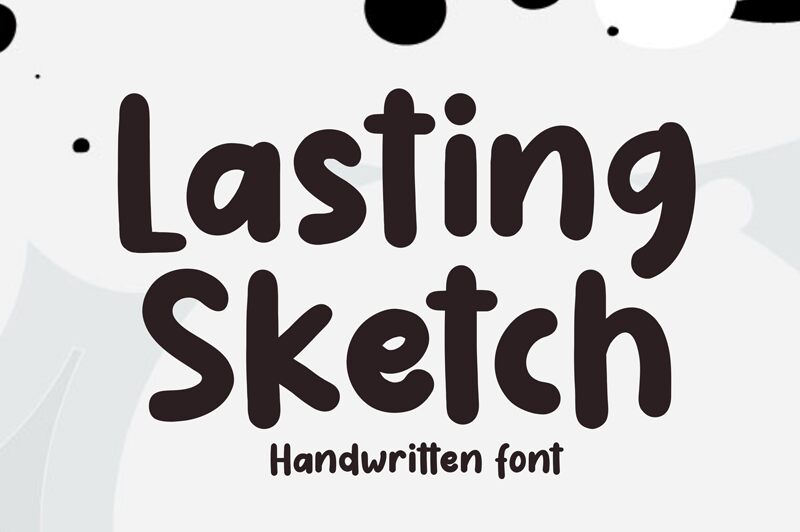
Lasting Sketch
Lasting Sketch, the latest display font from Erlina Graphic, is the perfect addition to any project that needs a touch of fun and creativity. Its cartoon-inspired style brings a playful energy to invitations, posters, social media graphics, and more. The semi-bold font weight ensures visibility and readability at any size, while its unique design catches the eye and adds personality to your text. Whether you're designing for a children's book or a quirky brand campaign, Lasting Sketch is the ideal choice for bringing your ideas to life.